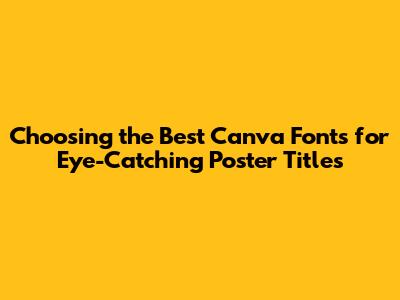
Top Canva Fonts For Stunning Poster Titles
Hey guys! Ever wondered how to make your poster titles really pop? It all starts with the perfect font! Canva is a treasure trove of fonts, but with so many options, it can feel like navigating a maze. Don't worry, though! We’re here to guide you through the best Canva fonts to make your poster titles shine. Let’s dive in and explore some fantastic options that will grab attention and convey your message effectively. Choosing the right font is crucial because it sets the tone and feel of your poster. Think of it as the voice of your design; you want it to be clear, engaging, and reflective of your content. We'll cover everything from classic serif fonts to modern sans-serif styles, and even some fun display fonts that can add a unique touch. So, whether you're designing a poster for a school event, a business promotion, or a creative project, we've got you covered. Get ready to discover the fonts that will transform your titles from ordinary to extraordinary! Let's get started and make your posters the talk of the town! Remember, the goal is to create a visual impact that resonates with your audience, and the right font is your secret weapon.
Understanding Font Types and Their Impact
Before we jump into specific fonts, let’s quickly break down the main font categories and how they influence your design. This knowledge will help you make informed decisions and choose fonts that perfectly match your poster's theme and purpose. There are primarily four main categories: serif, sans-serif, script, and display fonts. Each type has its own unique characteristics and evokes different feelings, making them suitable for various situations. Let's explore each category in detail.
Serif Fonts: The Classic Choice
Serif fonts are characterized by the small decorative strokes, or “serifs,” at the end of each letter. These fonts often convey a sense of tradition, elegance, and authority. Think of them as the classic choice for formal and professional designs. Some popular serif fonts include Times New Roman, Garamond, and Georgia. Serif fonts are excellent for body text in print materials because the serifs help guide the reader's eye across the page, improving readability. However, for poster titles, they can also add a touch of sophistication and class. For example, a serif font might be perfect for a poster advertising a classical music concert or a formal gala. The key is to choose a serif font that is bold enough to stand out but still maintains its elegance. You might pair a bold serif font with a simpler sans-serif font for the body text to create a balanced and visually appealing design. When selecting a serif font for your poster title, consider the overall tone and message you want to convey. If you're aiming for a timeless and sophisticated look, a well-chosen serif font can be your best friend. They bring a certain level of gravitas and professionalism that other font types might not achieve. So, embrace the classics and see how serif fonts can elevate your poster designs!
Sans-Serif Fonts: Modern and Clean
Sans-serif fonts, on the other hand, lack those little decorative strokes. This gives them a cleaner, more modern, and minimalist appearance. Think of them as the go-to choice for contemporary designs and digital applications. Popular sans-serif fonts include Helvetica, Arial, and Open Sans. These fonts are known for their readability and versatility, making them a staple in the design world. Sans-serif fonts are excellent for headlines and titles because their clean lines make them easy to read from a distance. They also work well in digital formats, such as websites and social media graphics, as they remain clear and legible even on screens with lower resolutions. When using sans-serif fonts for poster titles, consider the specific message you want to convey. If you're aiming for a modern and approachable look, a sans-serif font is a fantastic choice. They can also create a sense of urgency and excitement, making them perfect for posters promoting sales, events, or new product launches. To create visual interest, you can experiment with different weights and styles within the same font family. For example, you might use a bold sans-serif font for the main title and a lighter weight for the subtitle or body text. This creates a clear hierarchy and makes your poster more visually appealing. So, if you're looking to achieve a clean, contemporary, and impactful design, sans-serif fonts are definitely worth exploring. They bring a fresh and modern feel to your posters, ensuring your message stands out in a stylish and effective way.
Script Fonts: Elegant and Creative
Script fonts mimic the look of handwriting, adding an elegant and personal touch to your designs. They come in various styles, from formal calligraphy to playful and whimsical scripts. These fonts are perfect for adding a touch of personality and creativity to your posters. Popular script fonts include Brush Script, Pacifico, and Great Vibes. Script fonts are often used for invitations, greeting cards, and posters that need a touch of elegance or a handcrafted feel. They can evoke feelings of warmth, creativity, and sophistication. However, it's crucial to use script fonts sparingly, especially for titles. Overusing script fonts can make your design look cluttered and difficult to read. The key is to use them strategically to highlight specific words or phrases. When choosing a script font for your poster title, consider the overall tone and message. A formal script font might be perfect for a wedding invitation or an elegant event poster, while a more playful script font could be suitable for a children's event or a creative workshop. Remember to prioritize readability. Choose a script font that is clear and easy to read from a distance. Avoid overly decorative or intricate scripts that can be challenging to decipher. Pairing a script font with a simpler serif or sans-serif font can create a balanced and visually appealing design. Use the script font for the main title and a clean, legible font for the body text. This ensures that your message is both stylish and easy to understand. So, if you're looking to add a touch of elegance, creativity, or personality to your posters, script fonts can be a fantastic choice. Just use them wisely and ensure they enhance your design rather than detract from it.
Display Fonts: Unique and Eye-Catching
Display fonts are designed to grab attention and make a statement. They come in a wide variety of styles, from bold and geometric to quirky and whimsical. These fonts are perfect for creating eye-catching titles and headlines that stand out from the crowd. Display fonts are less concerned with readability in large blocks of text and more focused on visual impact. They can be used to convey a specific mood or theme, making them ideal for posters, advertisements, and branding materials. Popular display fonts include Impact, Bebas Neue, and ChunkFive. When using display fonts, the goal is to make a memorable impression. These fonts are perfect for posters promoting events, sales, or anything that needs to capture attention quickly. However, it's essential to use them sparingly and strategically. Overusing display fonts can create a chaotic and overwhelming design. Choose one or two display fonts that complement each other and use them for your main titles or headings. Pair them with simpler serif or sans-serif fonts for the body text to ensure readability. Consider the overall message and tone of your poster when selecting a display font. A bold and geometric font might be perfect for a modern and edgy design, while a more whimsical font could be suitable for a children's event or a creative project. Remember to test your font choices in different sizes and layouts to ensure they look good and convey the intended message. So, if you're looking to make a bold statement and grab attention, display fonts are your go-to choice. Just use them wisely and let them shine in your designs!
Top Canva Fonts for Poster Titles
Alright, now that we've covered the basics of font types, let's get into the top Canva fonts that are perfect for poster titles. Canva offers a fantastic selection of fonts, but some stand out for their versatility, readability, and visual appeal. We’ve curated a list of fonts across different categories to suit various design needs and styles. Whether you're designing a poster for a business conference, a school event, or a personal project, you'll find some great options here. We'll cover a mix of serif, sans-serif, script, and display fonts, highlighting their unique characteristics and how they can enhance your poster titles. So, let's dive in and discover the fonts that will make your posters truly shine!
Serif Font Recommendations
For a touch of classic elegance, these serif fonts are excellent choices for your poster titles:
• Playfair Display: This font is a beautiful and elegant serif that works well for formal events or sophisticated designs. Its high contrast and graceful curves make it a standout choice for titles.
• Lora: Lora is a well-balanced serif font with a contemporary feel. It's highly readable and works well in both print and digital formats, making it a versatile option for poster titles.
• Merriweather: This font is designed for readability on screens, making it a great choice for digital posters. It has a classic serif look with a modern twist, perfect for a wide range of designs.
Sans-Serif Font Recommendations
If you're aiming for a modern and clean look, these sans-serif fonts will do the trick:
• Montserrat: Montserrat is a popular sans-serif font with a clean and geometric design. It's highly versatile and works well for a variety of poster styles, from corporate to creative.
• Open Sans: This font is known for its readability and simplicity. It's a great choice for posters that need to convey information clearly and concisely.
• Oswald: Oswald is a bold and condensed sans-serif font that's perfect for headlines and titles. Its strong presence makes it ideal for grabbing attention.
Script Font Recommendations
For adding a touch of personality and flair, consider these script fonts:
• Great Vibes: This elegant script font is perfect for adding a touch of sophistication to your poster titles. It's ideal for wedding invitations, event posters, and anything that needs a touch of class.
• Pacifico: Pacifico is a casual and friendly script font that's perfect for adding a playful touch to your designs. It's great for posters promoting fun events or creative projects.
• Brittany Signature: This font has a handwritten feel that’s both elegant and personal, making it perfect for posters that need a unique touch.
Display Font Recommendations
To make a bold statement, these display fonts are excellent choices:
• Bebas Neue: This font is a clean and modern sans-serif with a tall and condensed design. It's perfect for headlines and titles that need to make a strong impact.
• Raleway: Raleway is an elegant sans-serif font family that includes both thin and bold weights, making it highly versatile for different design needs. It’s great for adding a touch of sophistication while still grabbing attention.
• Luckiest Guy: This fun and whimsical display font is perfect for posters that need a playful and eye-catching title. It's great for events, parties, and creative projects.
Tips for Pairing Fonts Effectively
Choosing the right font is only half the battle. Pairing fonts effectively is crucial for creating a visually harmonious and balanced poster design. A well-chosen font pairing can elevate your poster and make your message even more impactful. On the other hand, a poor font pairing can make your poster look cluttered and unprofessional. So, how do you ensure your font pairings are on point? Here are some tips and tricks to help you master the art of font pairing.
Contrast is Key
One of the most important principles of font pairing is contrast. You want to choose fonts that are different enough from each other to create visual interest but still complement each other. This means avoiding fonts that are too similar, as they can blend together and make your design look monotonous. A classic way to achieve contrast is to pair a serif font with a sans-serif font. For example, you might pair Playfair Display (a serif font) with Montserrat (a sans-serif font). The contrast between the elegant serifs and the clean lines of the sans-serif creates a visually appealing combination. Another way to create contrast is by using different weights and styles within the same font family. For example, you might use a bold weight for your title and a regular weight for your body text. This creates a clear hierarchy and makes your design more readable. So, when choosing fonts, think about how they contrast with each other and how that contrast can enhance your design.
Limit Your Font Choices
It's tempting to use lots of different fonts in your design, but this can quickly lead to a cluttered and confusing look. A general rule of thumb is to limit yourself to two or three fonts per design. This helps to create a cohesive and professional look. When you have too many fonts competing for attention, your message can get lost. By sticking to a limited palette of fonts, you create a sense of unity and harmony. You can use one font for your title, another for your body text, and perhaps a third for accents or callouts. This gives you enough variety to create visual interest without overwhelming your design. So, remember, less is often more when it comes to font choices. Keep it simple, and your poster will look more polished and professional.
Consider the Hierarchy
Font pairing is also about creating a clear visual hierarchy. This means using different fonts and styles to guide the reader's eye and highlight important information. Your title should be the most prominent element on your poster, so it should be set in a font that stands out. You might use a bold display font or an elegant script font for your title. Your body text should be set in a font that is easy to read, such as a simple serif or sans-serif font. Subheadings and other secondary elements can be set in a different font or style to create further visual distinction. By carefully considering the hierarchy of your fonts, you can ensure that your message is clear and impactful. Think about what you want people to notice first, second, and third, and choose your fonts accordingly. This will help you create a poster that is not only visually appealing but also highly effective in communicating your message.
Test Your Font Pairings
Finally, the best way to ensure your font pairings work well together is to test them out. Create a mockup of your poster with your chosen fonts and see how they look together. Try different sizes, weights, and styles to see what works best. Pay attention to how the fonts interact with each other and whether they create the desired effect. It's also helpful to get feedback from others. Show your mockup to friends, colleagues, or potential customers and ask for their opinions. They may notice things that you have overlooked and provide valuable insights. Testing your font pairings is an essential step in the design process. It allows you to fine-tune your choices and ensure that your poster looks its best. So, don't skip this step – it can make all the difference in the final result!
Final Thoughts: Making Your Poster Titles Shine
Choosing the best Canva fonts for your poster titles is a crucial step in creating an impactful and visually appealing design. By understanding the different font types and their characteristics, you can make informed decisions that align with your message and style. Remember to consider the overall tone of your poster and choose fonts that complement the theme. Whether you opt for a classic serif, a modern sans-serif, an elegant script, or a bold display font, the key is to ensure that your title grabs attention and conveys your message effectively. Pairing fonts effectively is also essential. Create contrast by combining different font types and styles, limit your font choices to maintain a cohesive look, and consider the visual hierarchy to guide the reader's eye. Always test your font pairings to ensure they work well together and make the necessary adjustments. With these tips and recommendations, you'll be well-equipped to create stunning poster titles that shine. So go ahead, explore Canva's font library, experiment with different combinations, and let your creativity flow. Your perfect poster title is just a font choice away! Happy designing, guys! We hope this guide has been super helpful in your font-finding journey. Remember, the right font can transform your poster from good to amazing.